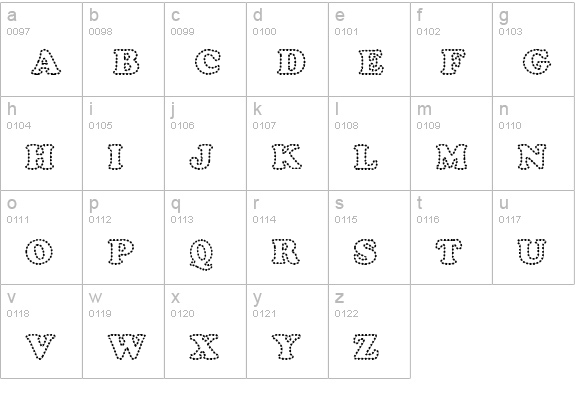
Chubby Trail Font Details
Chubby Trail font is a whimsical and playful typeface that adds a touch of fun to any project. With its rounded edges and bold appearance, this font is perfect for creating eye-catching designs that stand out. Whether you're working on a poster, invitation, or logo, Chubby Trail font will bring a cheerful and lighthearted feel to your work. The best part? Chubby Trail font is available for free download at FontsMarket.com. Yes, you read that right - this charming font can be yours at no cost, making it a fantastic choice for budget-conscious designers looking to add a touch of personality to their projects. Don't miss out on this delightful typeface - download Chubby Trail font today and start creating with style and flair!